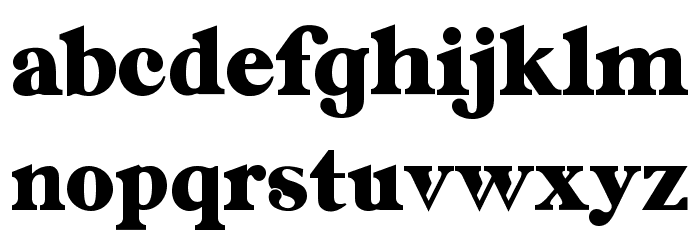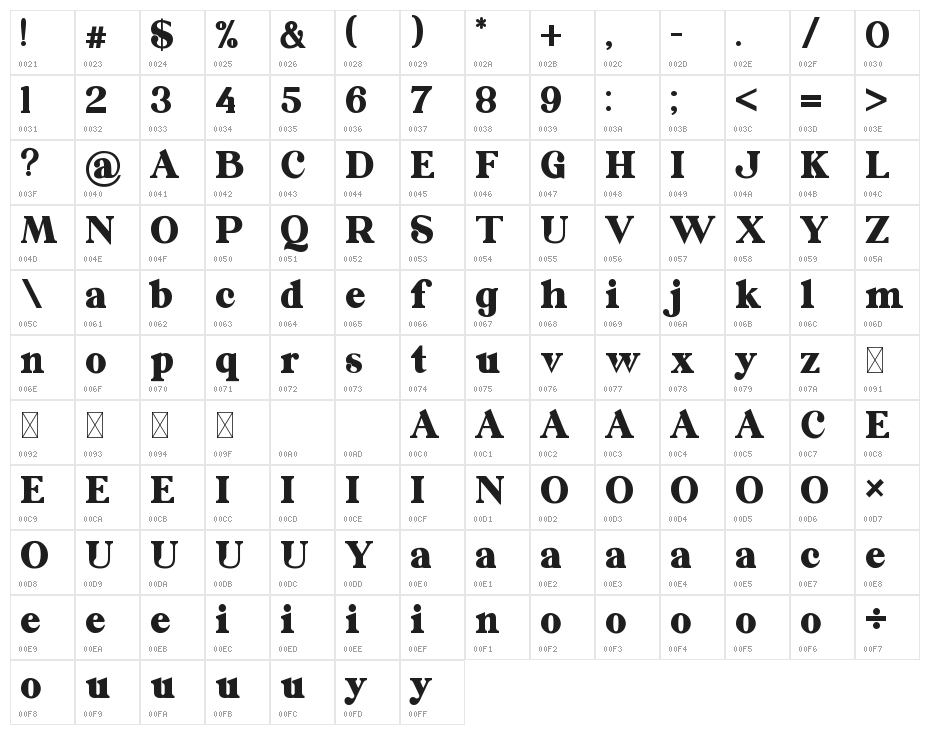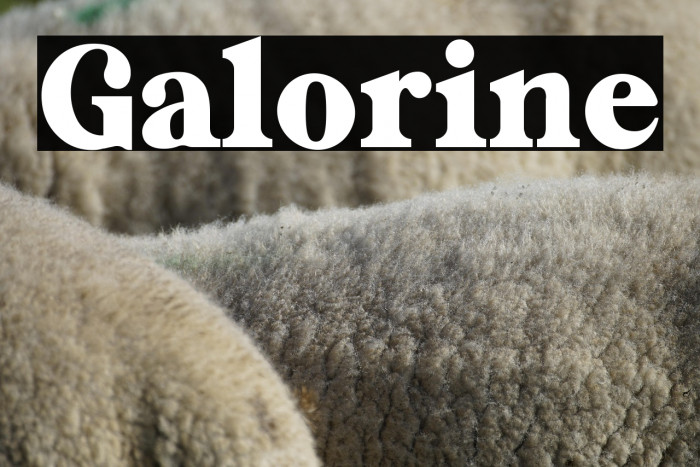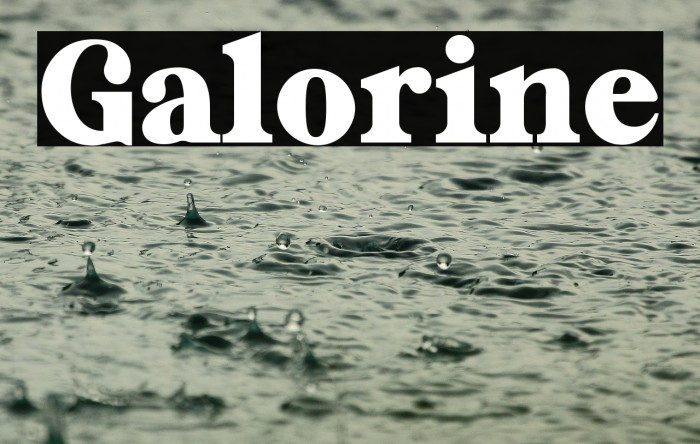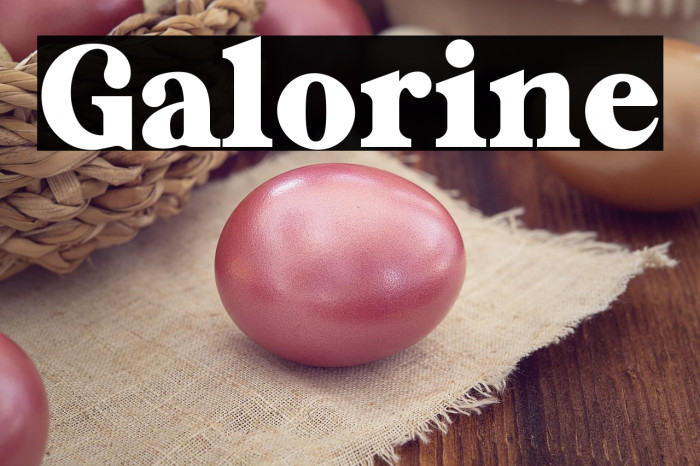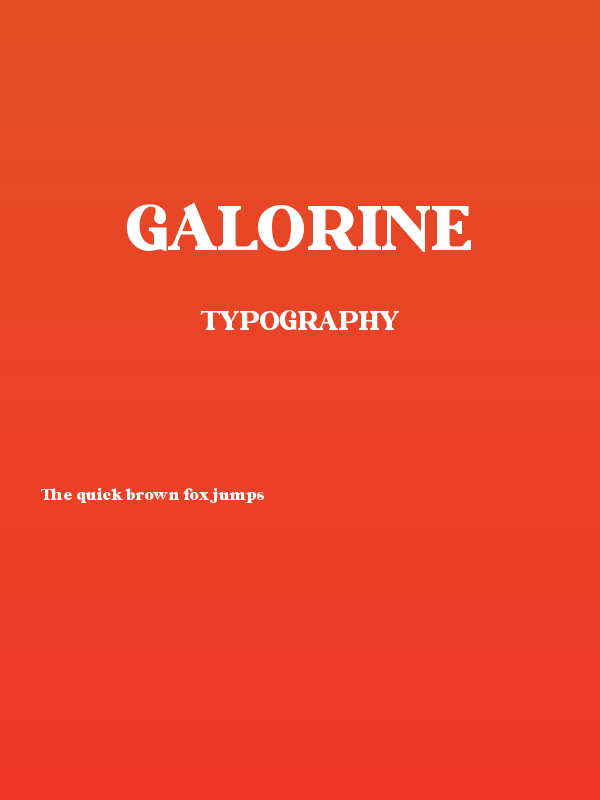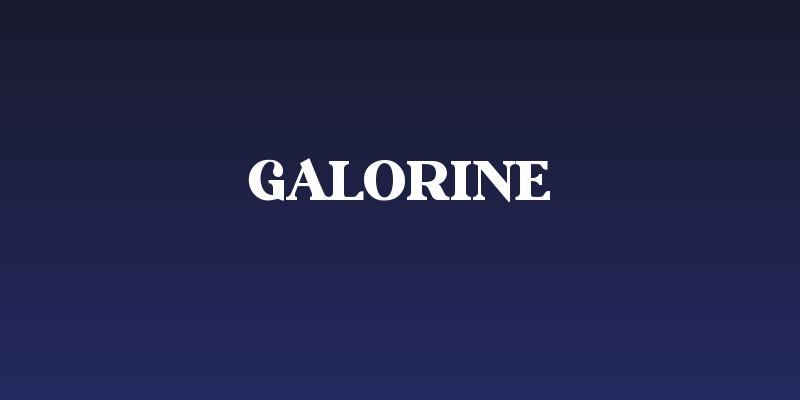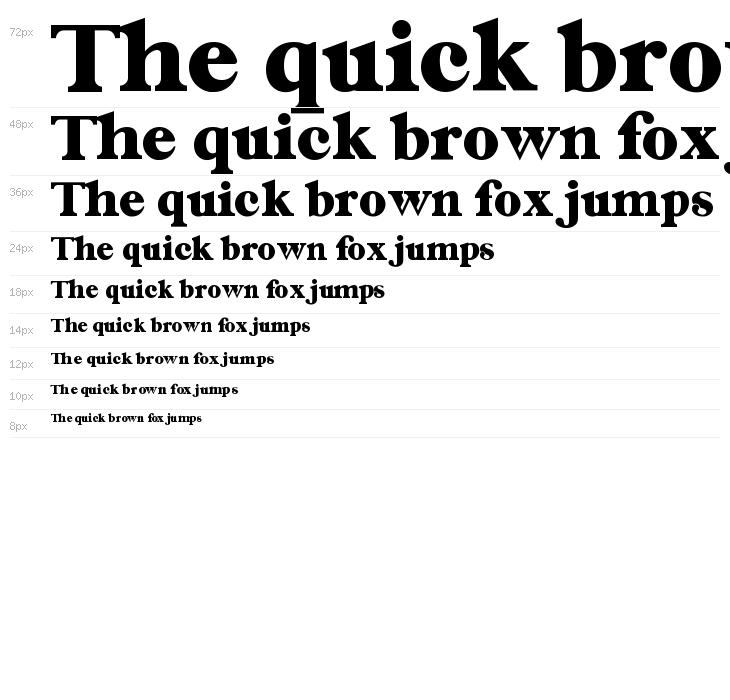
Galorine Font
This font features bold, prominent serifs with a classic and authoritative appearance. The uppercase letters are strong and commanding, while the lowercase letters maintain a consistent weight and style, providing a cohesive look. The numerals are equally bold, ensuring they stand out in any context. Special characters are designed with the same attention to detail, making them suitable for a variety of uses. The overall design is both traditional and impactful, making it ideal for projects that require a sense of reliability and strength.
A bold serif font with a classic and authoritative style.
- Proposed Projects: Ideal for book covers, headlines, branding, and editorial design.
- Overall Style: Classic
- Use Case: Headlines, Logos, Editorial design